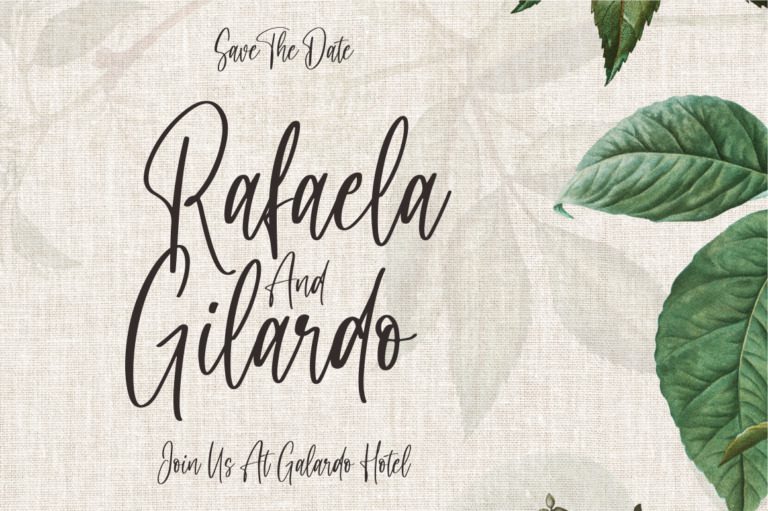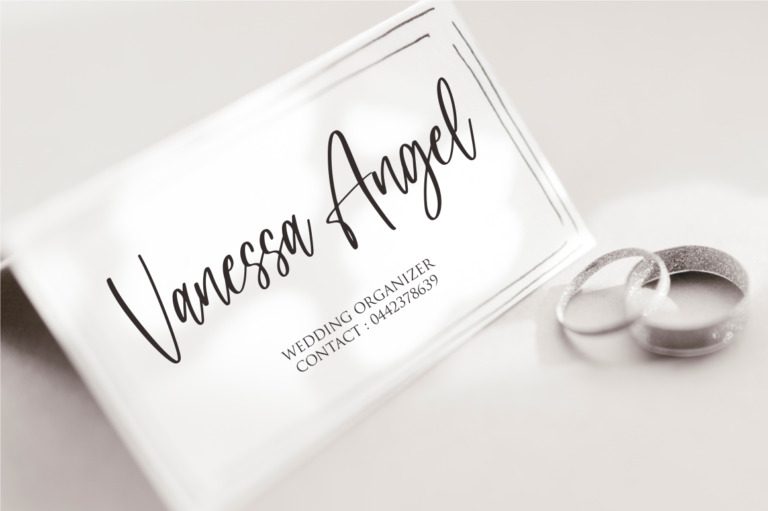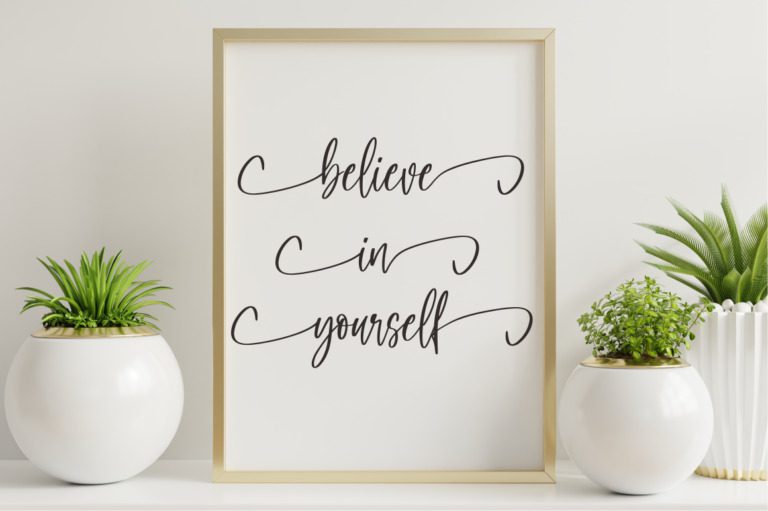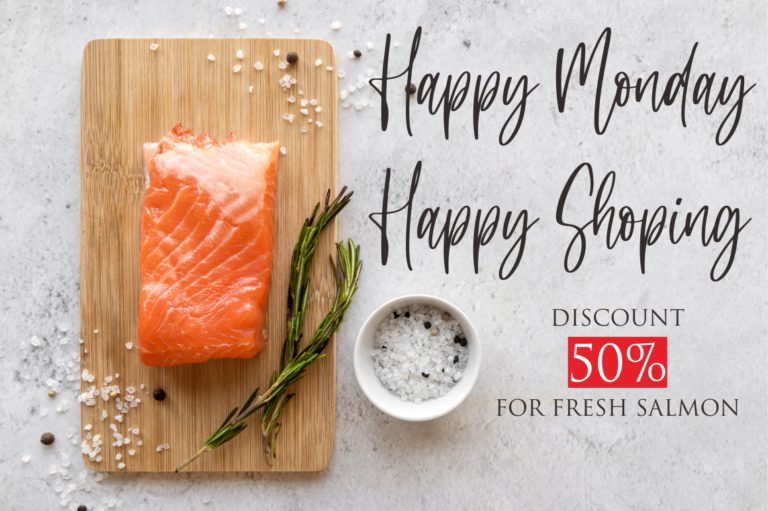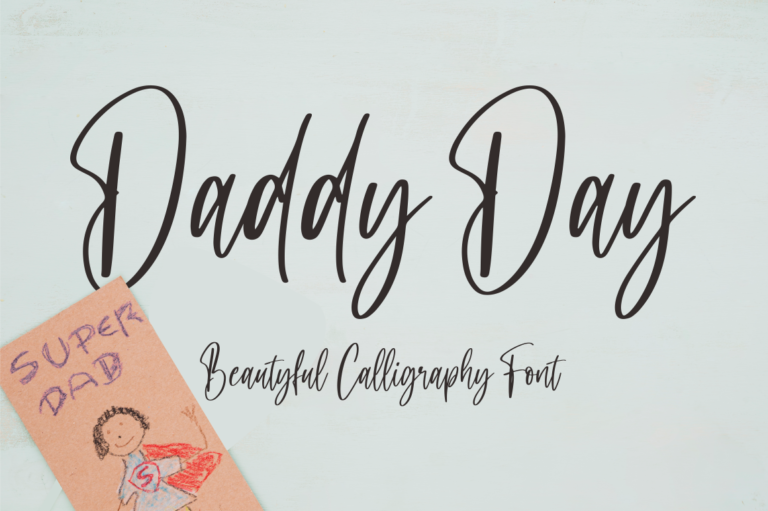
Daddy Day Font
Daddy Day is a playful and cheerful font perfect for Father’s Day cards, children’s books, or any project that needs a touch of fun and nostalgia. Its rounded edges and friendly curves evoke a sense of warmth and happiness, making it ideal for expressing love and appreciation for dads everywhere.